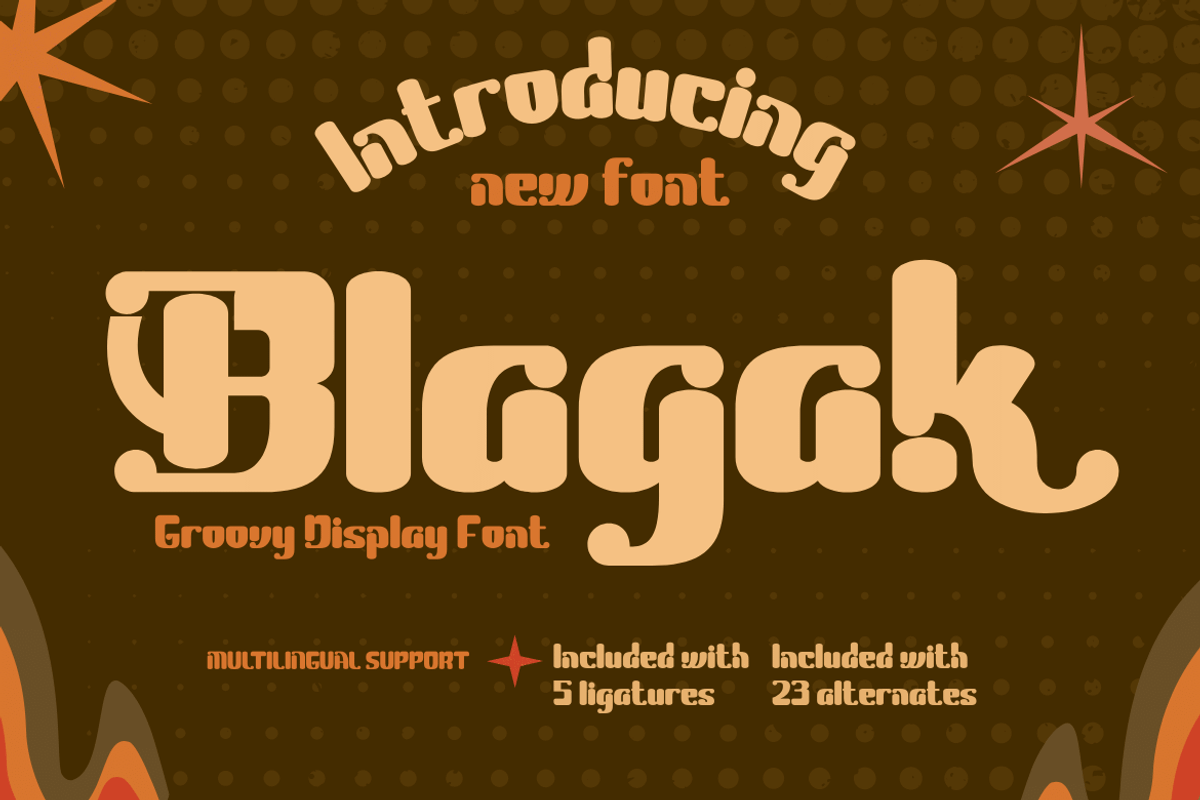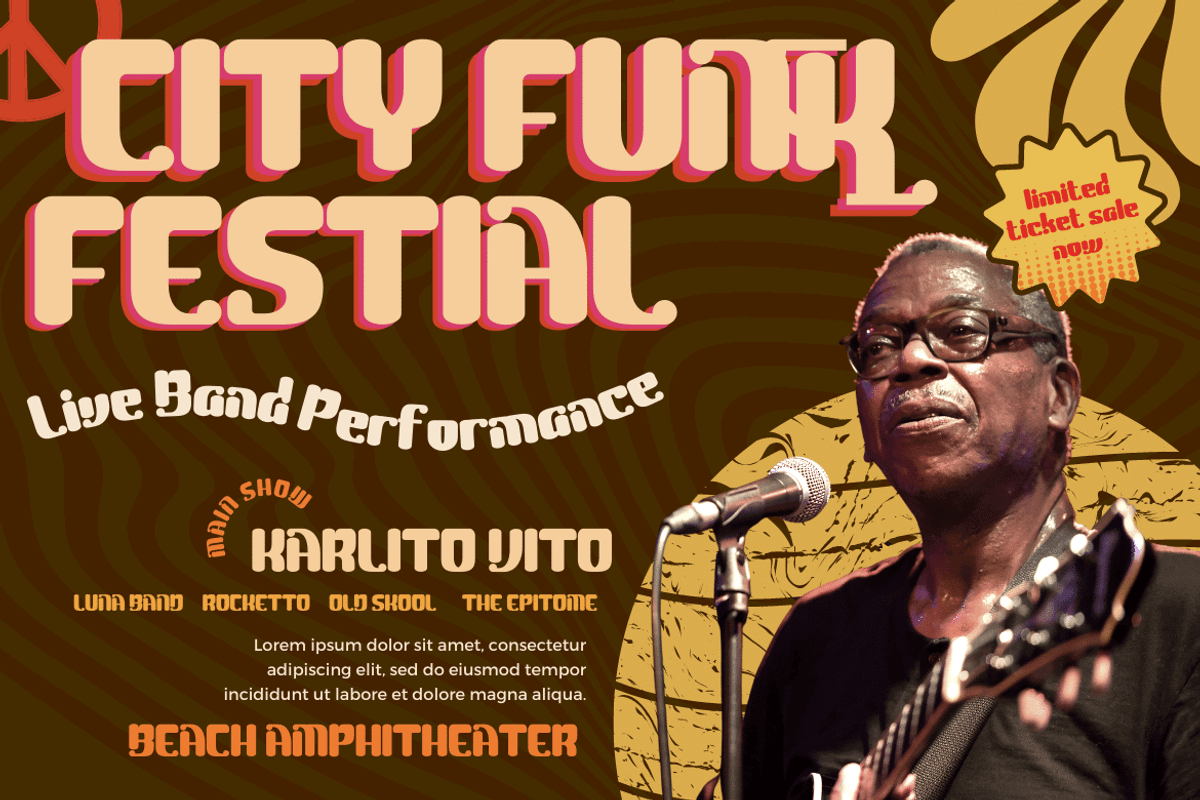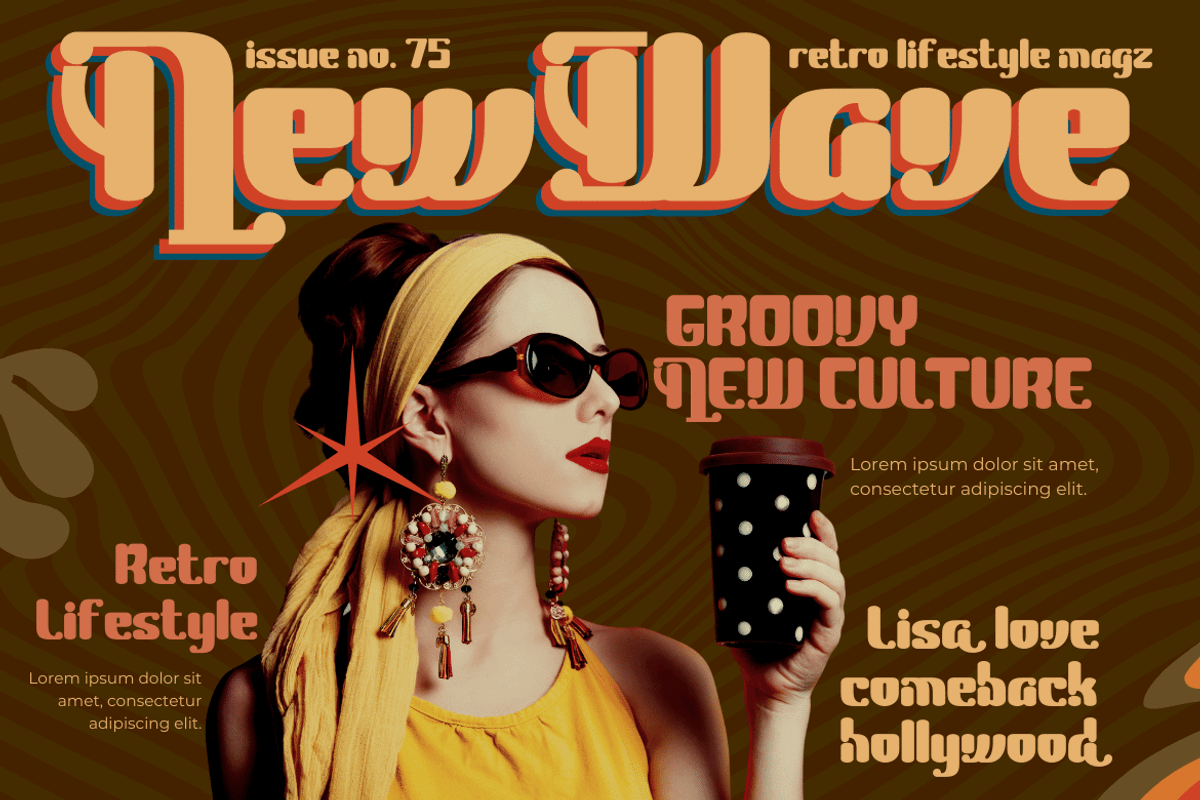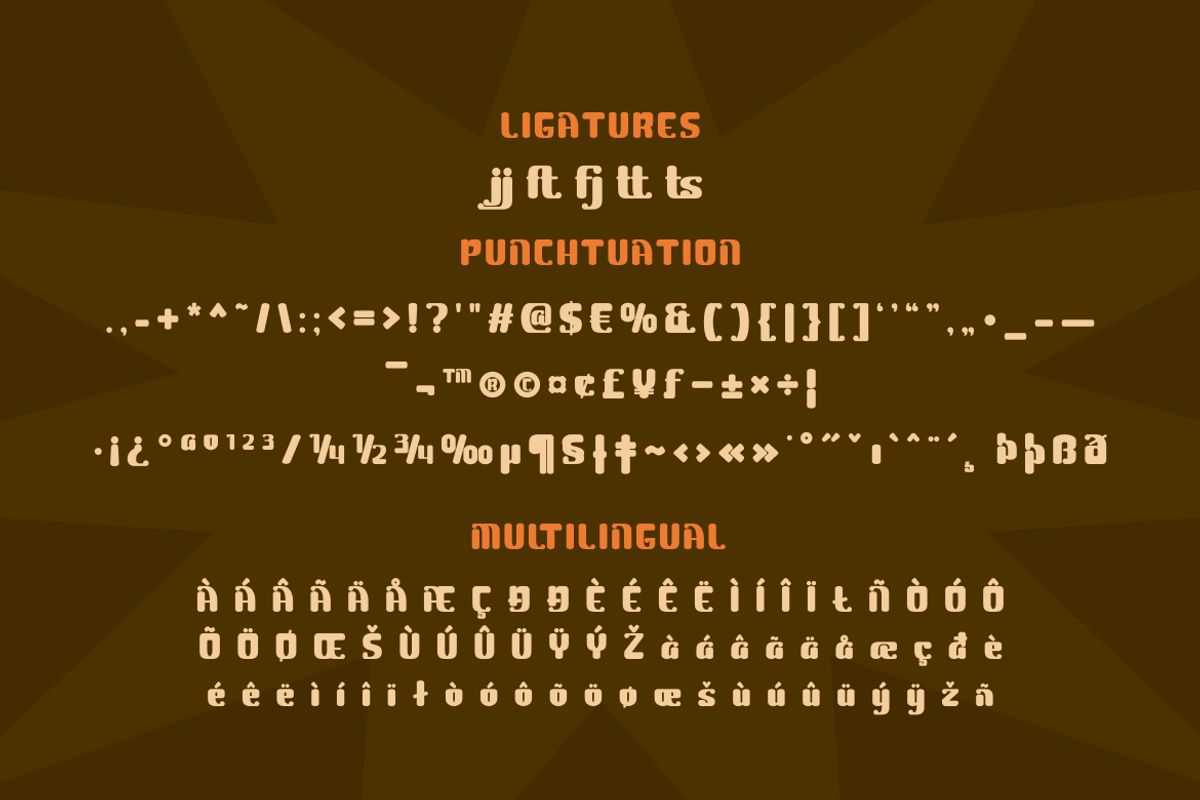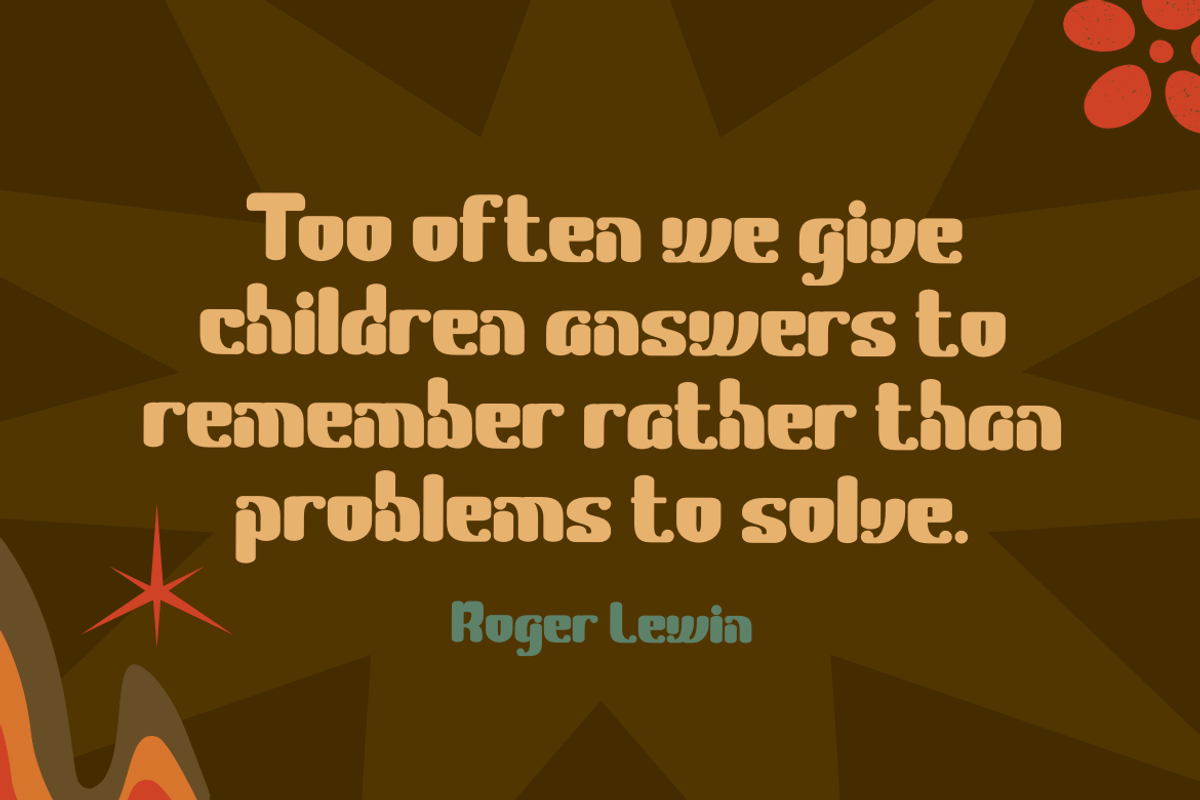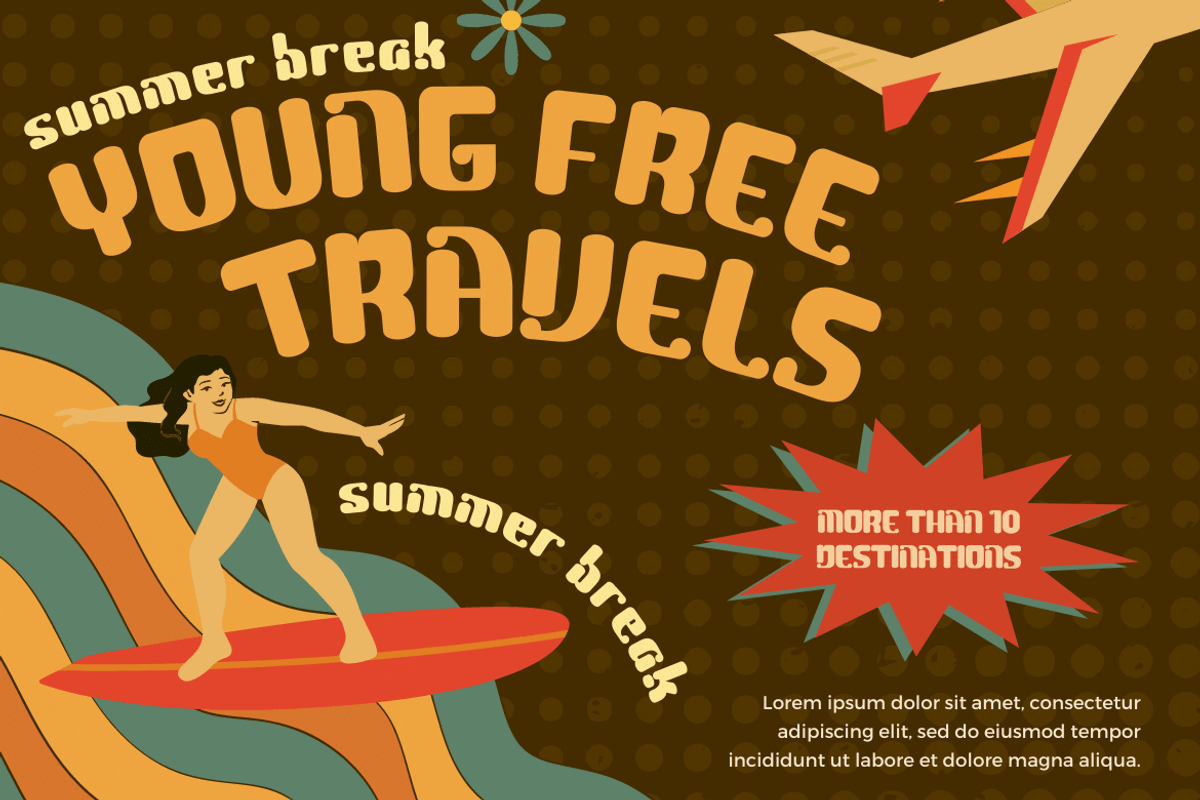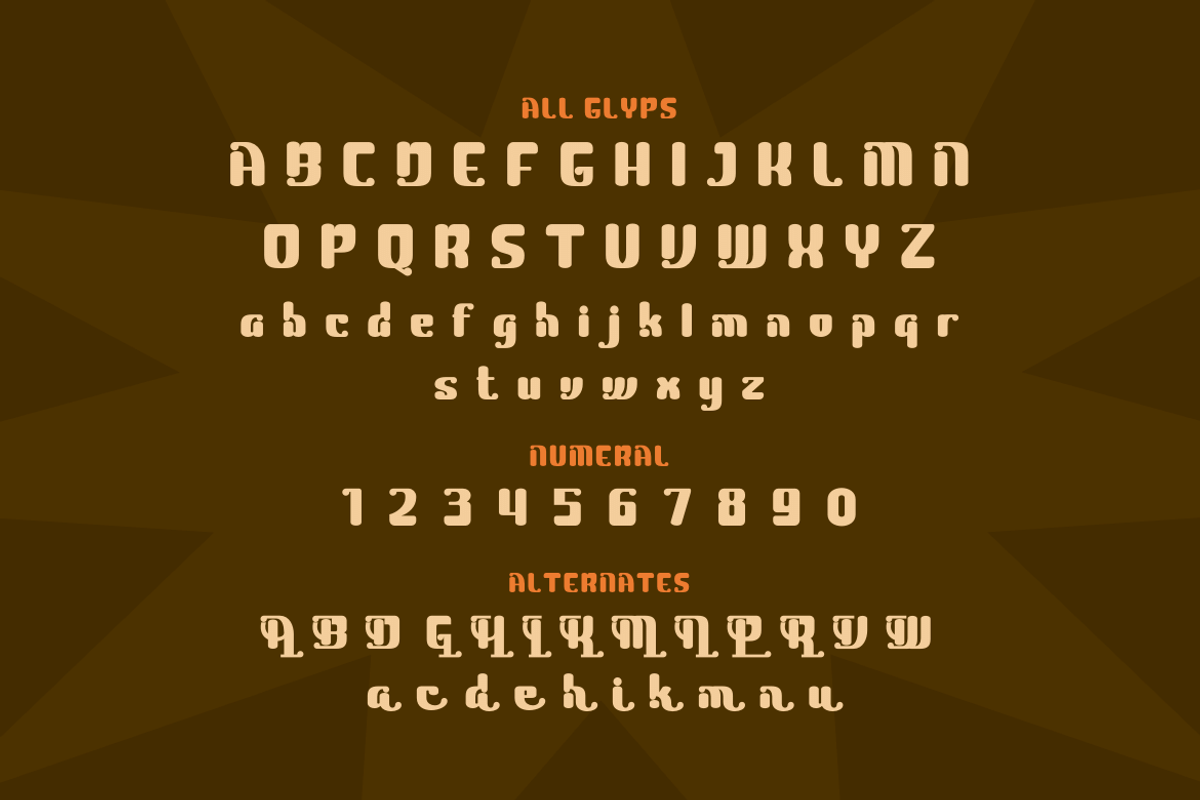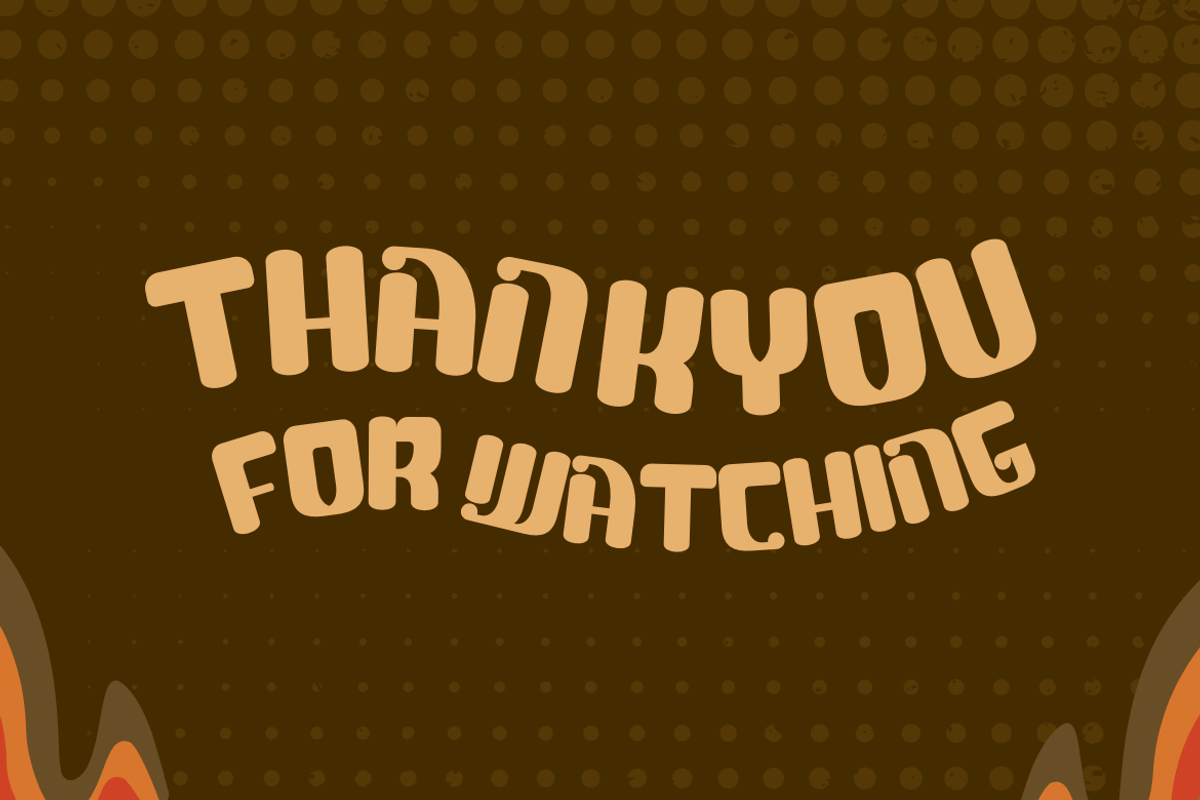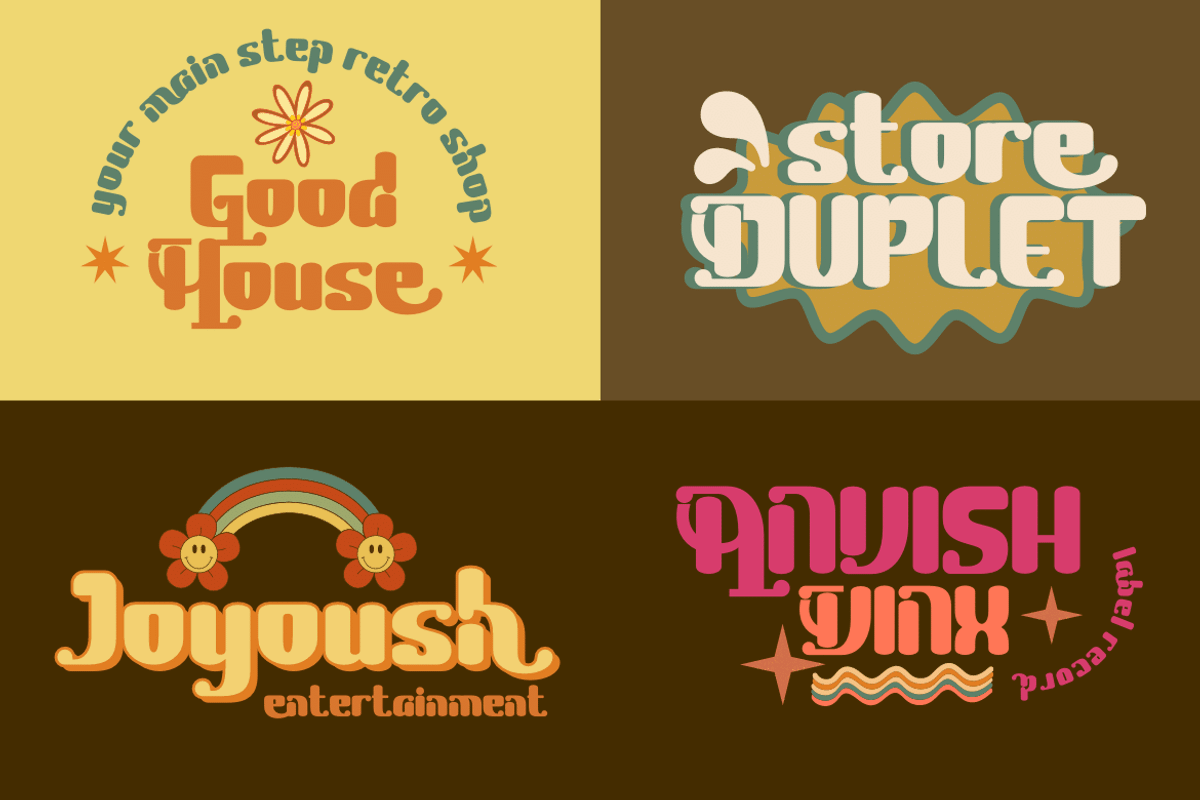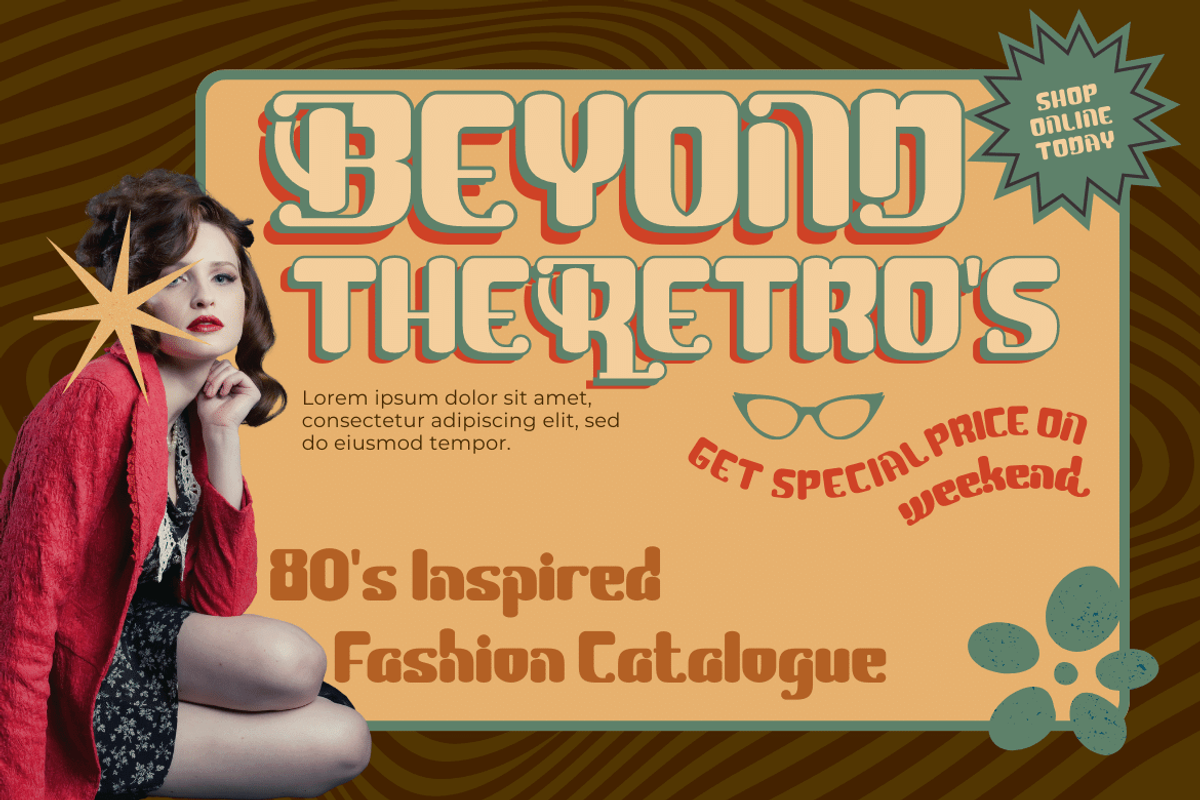
Blagak | Groovy Retro Font
Add imagination and spice to your next design project with the Blagak font. This elegant font can be used in any project. With a wide variety of fasteners and alternatives, Blagak brings a bit of vintage charm to any design project. Take a trip down memory lane with the Blagak font. This elegant font combines vintage appeal with contemporary design sensibilities to create a whimsical yet professional look. Use this font in any design project to add your own sense of nostalgia.